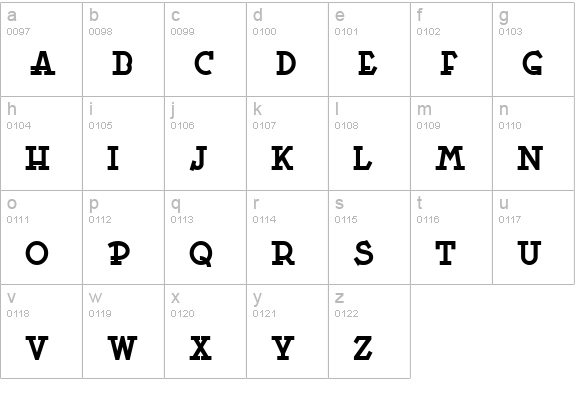
Pomegranate NF Font Details
Pomegranate NF font is a unique and elegant typeface that exudes sophistication and charm. Its intricate details and flowing curves make it a perfect choice for adding a touch of luxury to your designs. This free font is not only visually stunning, but also highly versatile, suitable for a wide range of projects from branding to editorial design. You can easily download Pomegranate NF font for free at FontsMarket.com, where you'll find a wide selection of high-quality fonts to elevate your creative projects. Don't miss out on this opportunity to enhance your designs with the beauty and elegance of Pomegranate NF font, now available for free download.